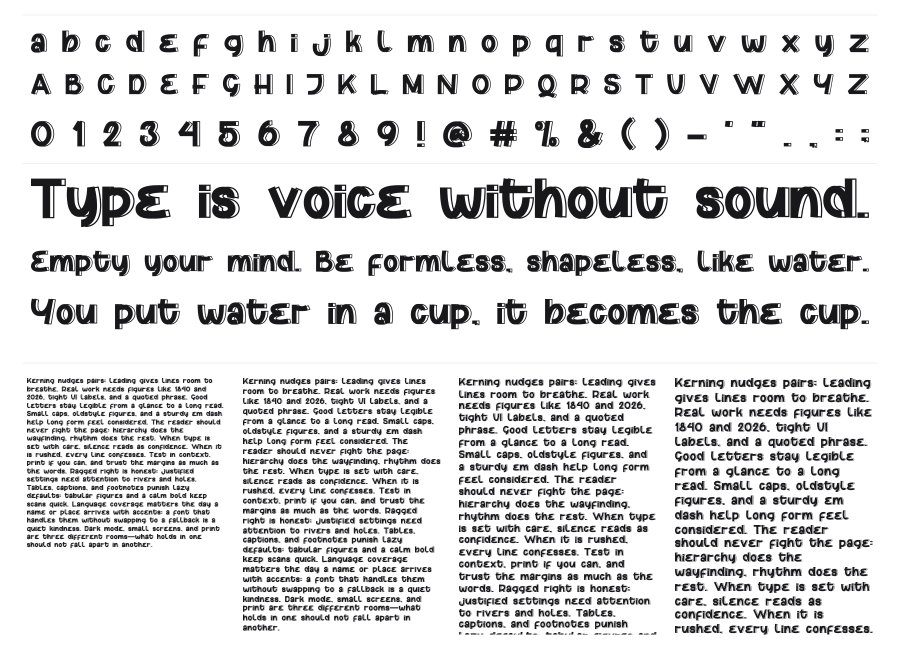
Geno Gone
Geno Gone is a bold comic display font with a distinctive inline channel cut through each thick, rounded letter. The hand-drawn quality gives it a casual, sticker-like personality with plenty of visual weight. A natural pick for anything targeting a fun, youthful, or cartoonish aesthetic.